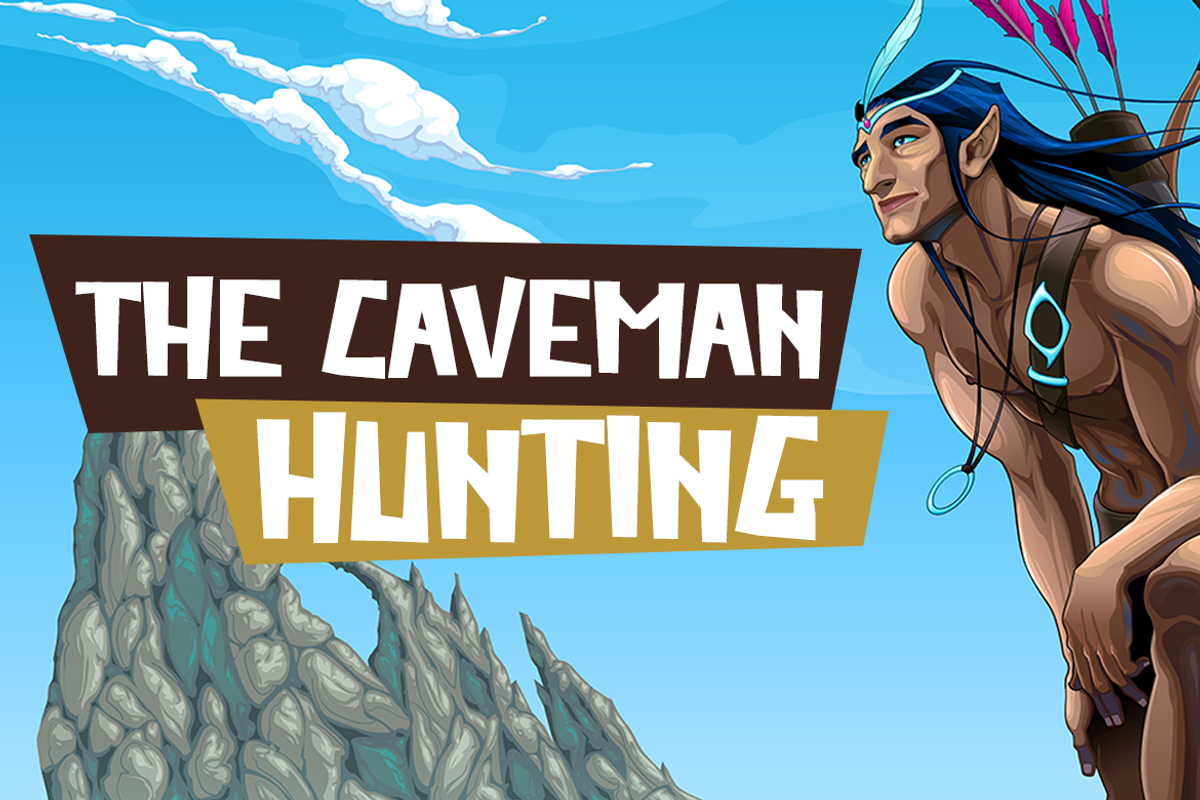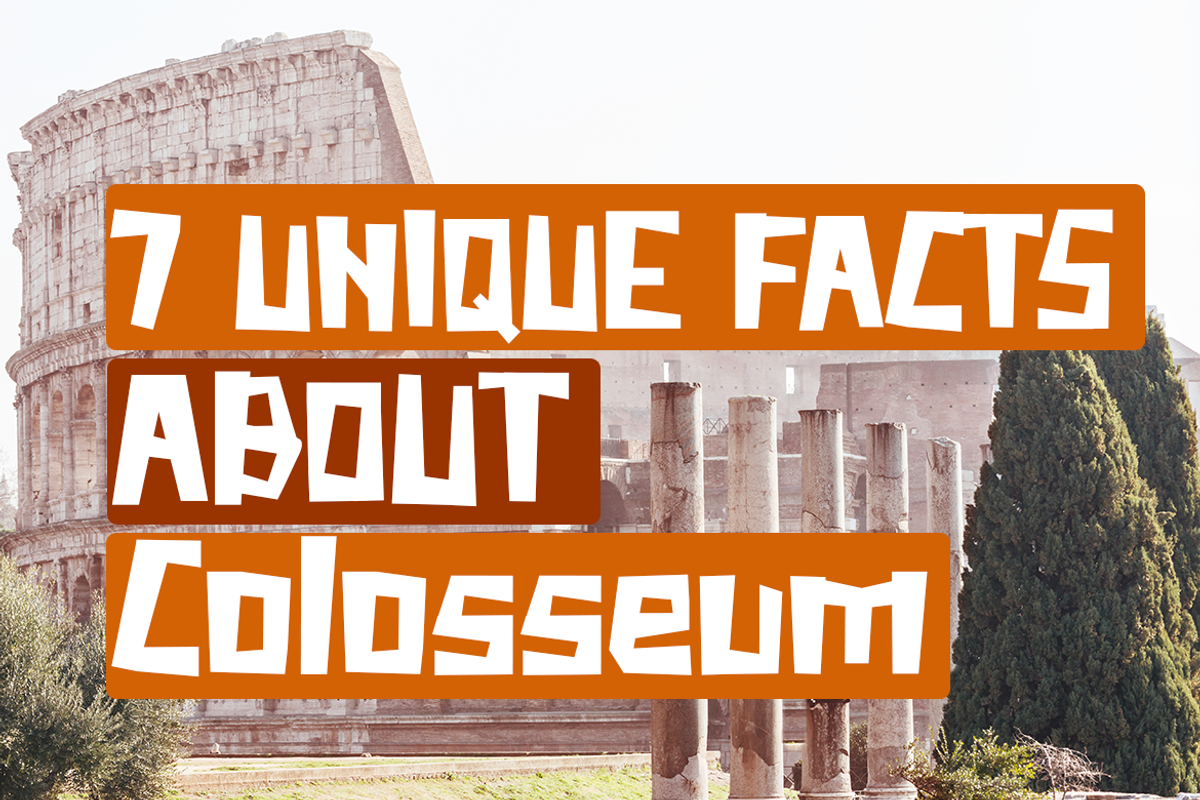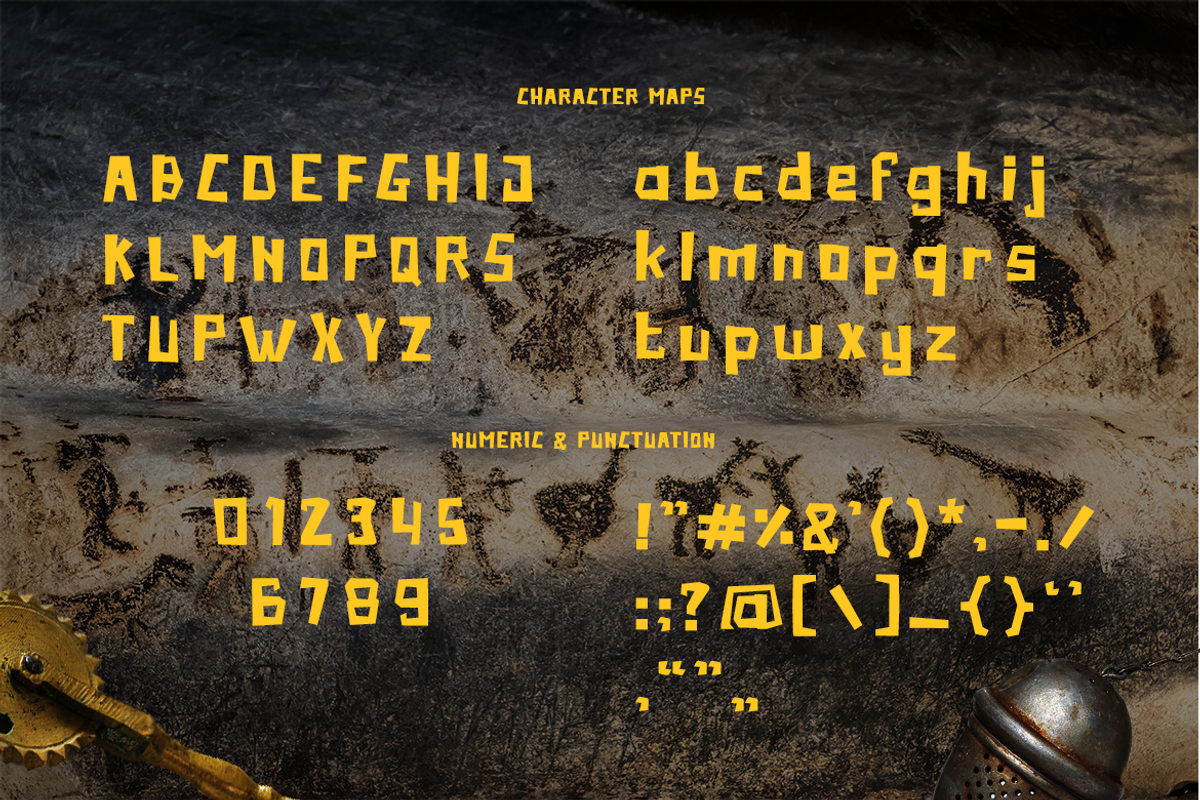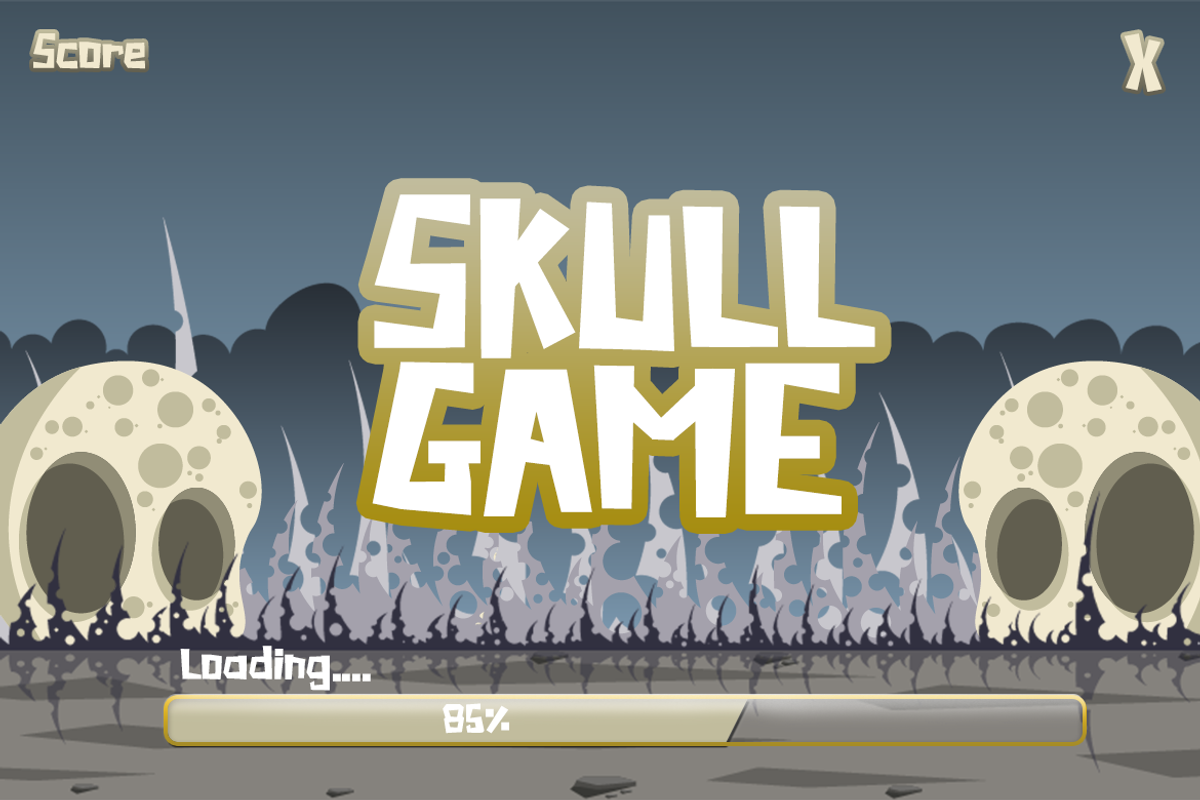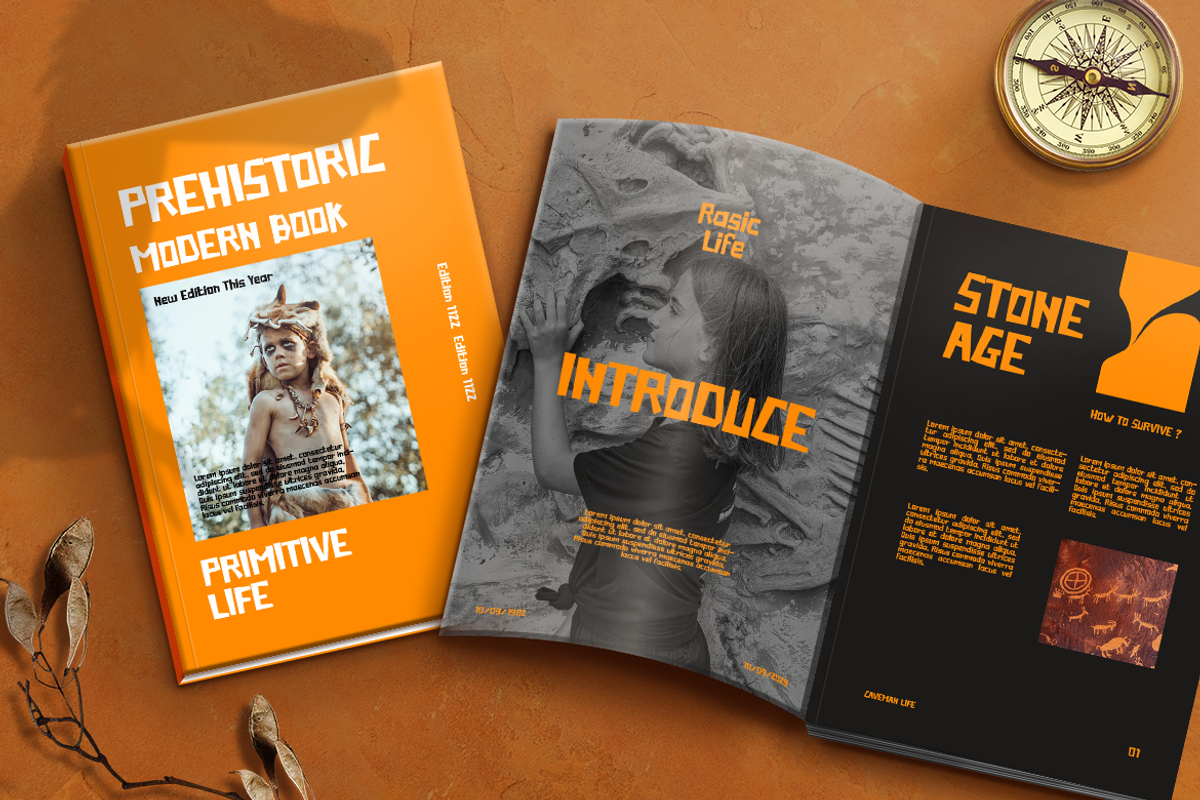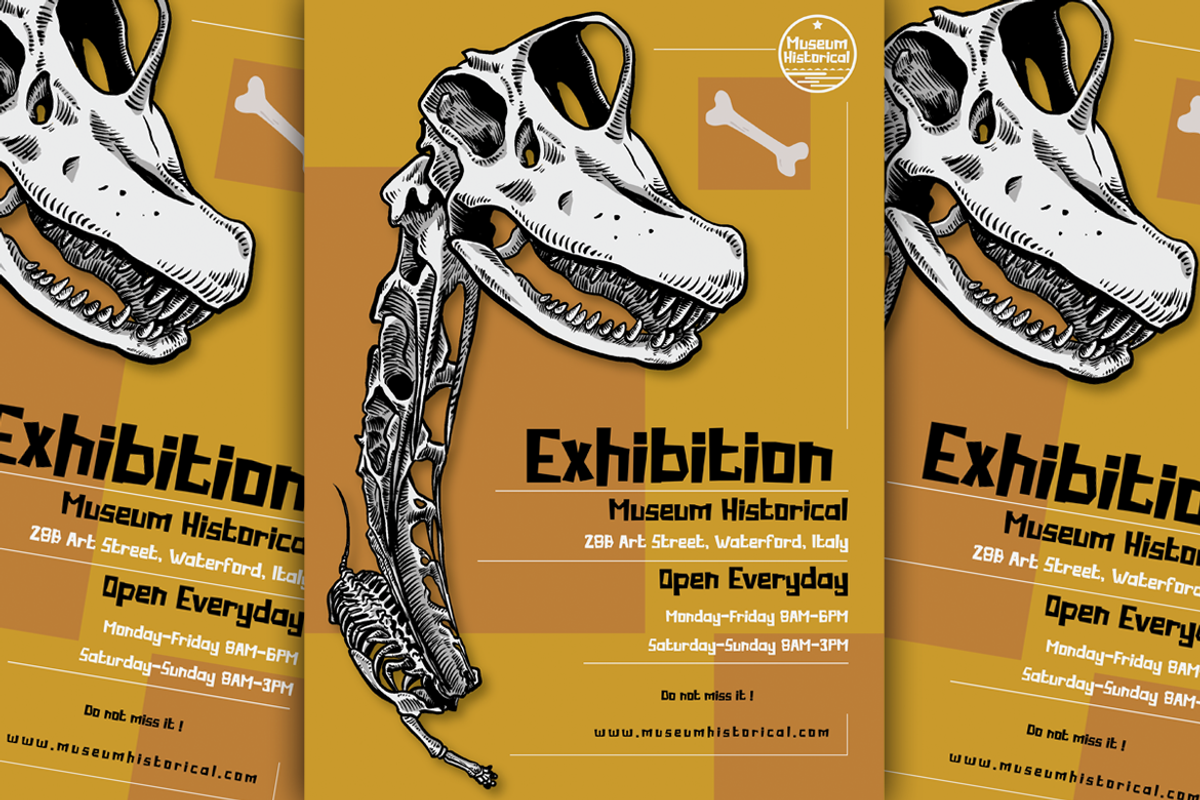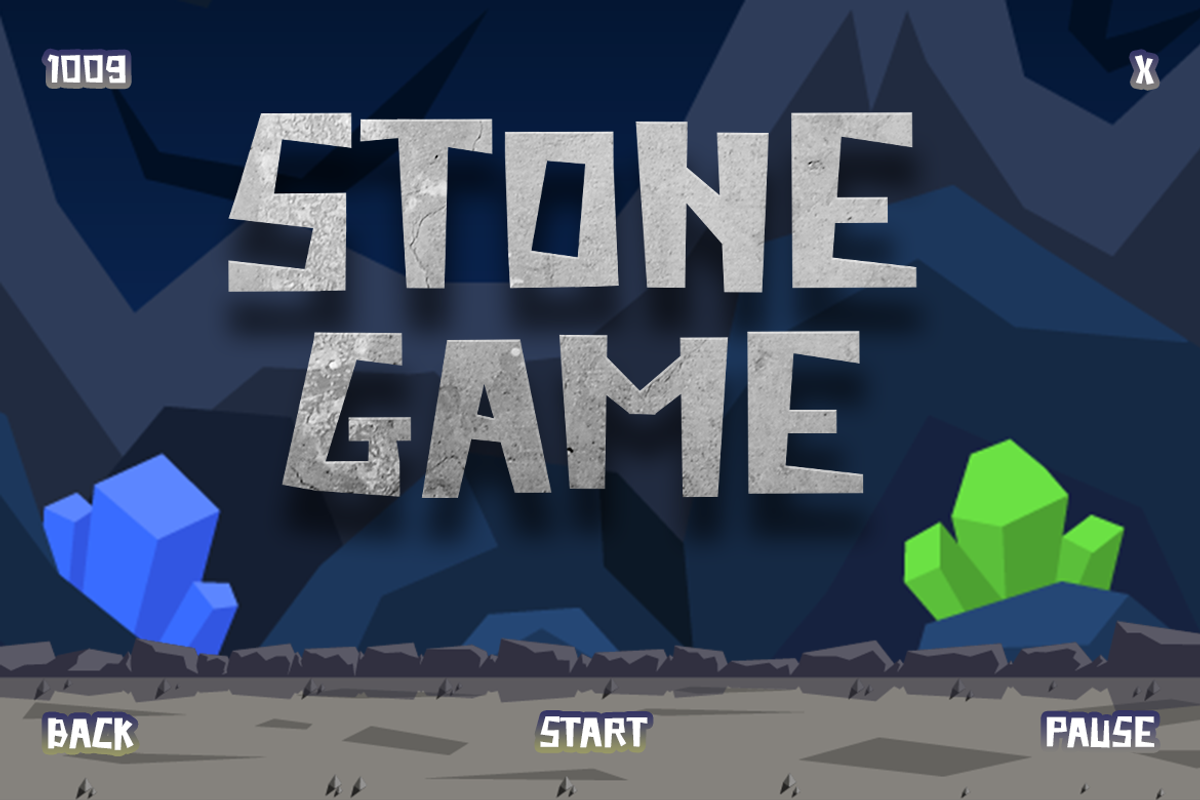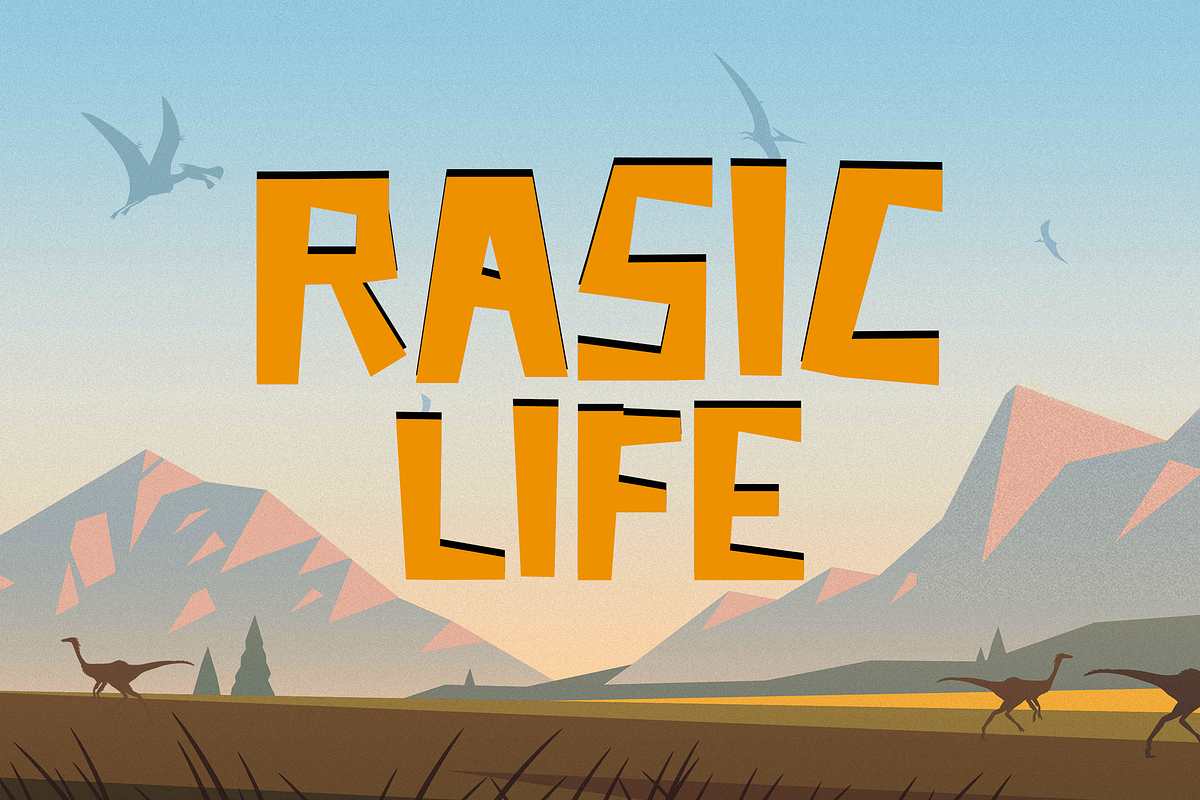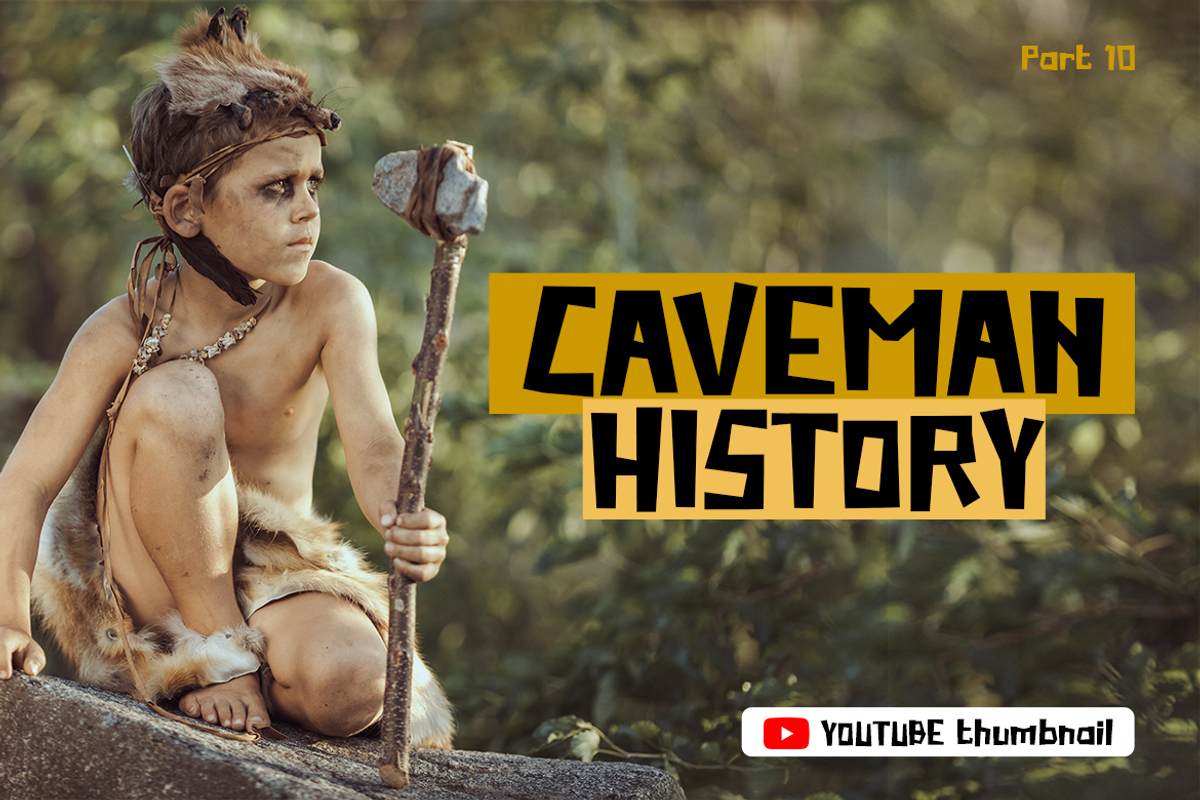
Rasic Life – Kids Font
Introducing the Rasic Life Kids Font, the perfect font for your child’s imaginative world! This playful and charming font is designed with cartoon and comic elements, making it an ideal choice for school projects, YouTube videos, Instagram stories, or any other kid-friendly content. Its cute and funny style is sure to capture the attention of young audiences and leave a lasting impression.
This modern and sans-serif font is perfect for creating a fun and engaging atmosphere. Its modest typeface is perfect for any movie or school-themed project, and it’s versatile enough to work with any design. The Rasic Life Kids Font comes with plenty of nature foliage and floral, giving it an organic and natural feel that perfectly complements its playful aesthetic.
Whether you’re a content creator, a graphic designer, or a parent looking to add a fun touch to your child’s projects, the Rasic Life Kids Font is the perfect choice. So why wait? Give your projects a touch of childhood whimsy with the Rasic Life Kids Font today!